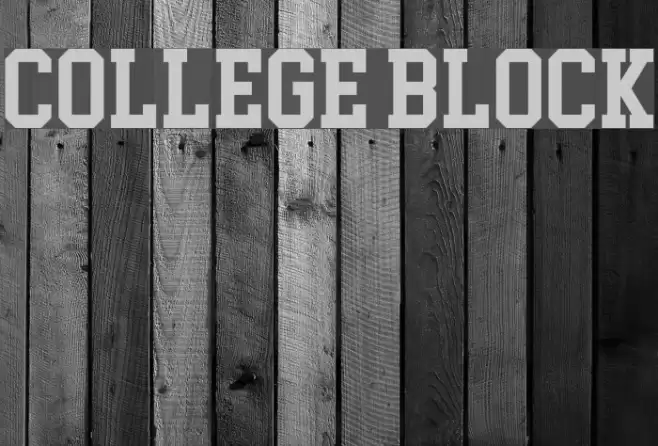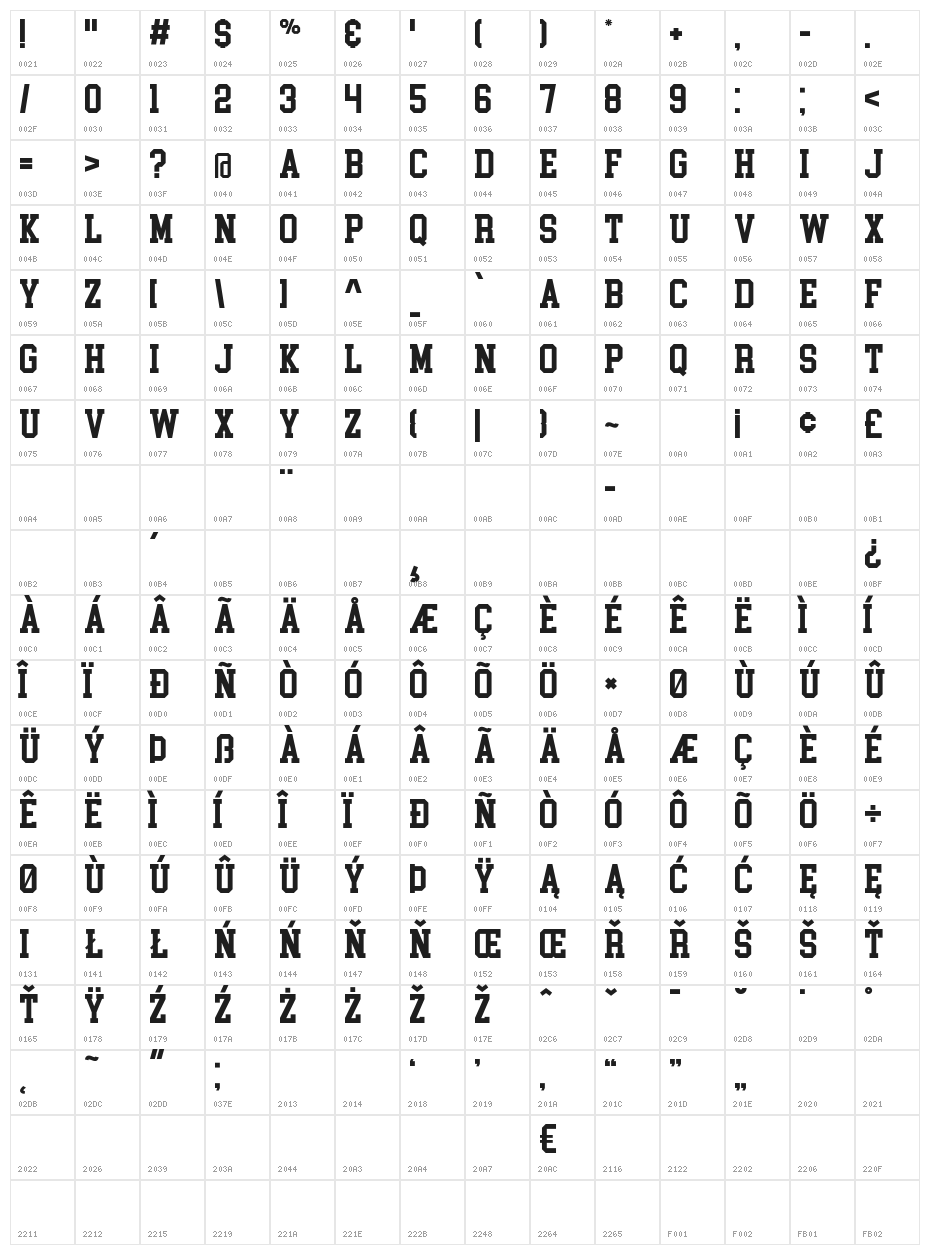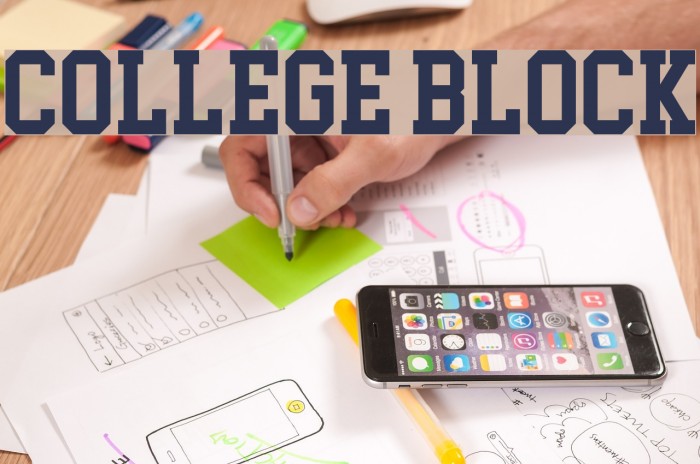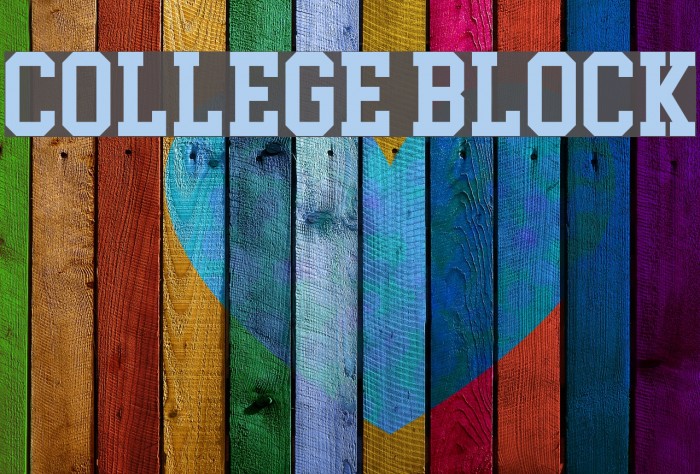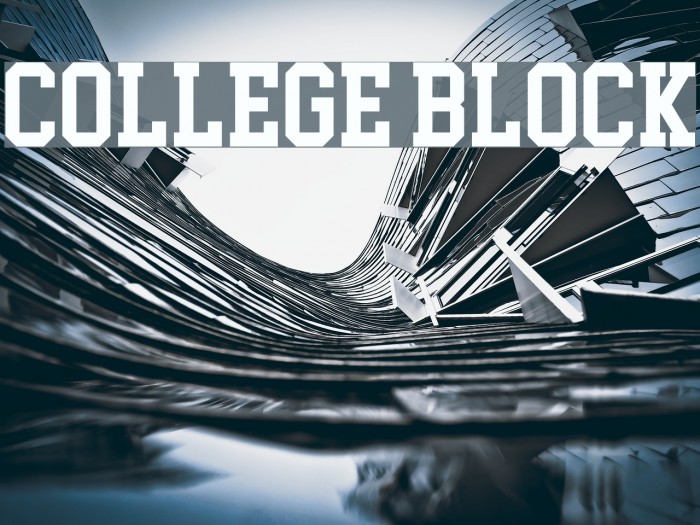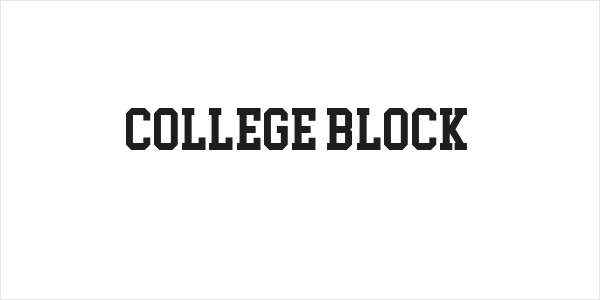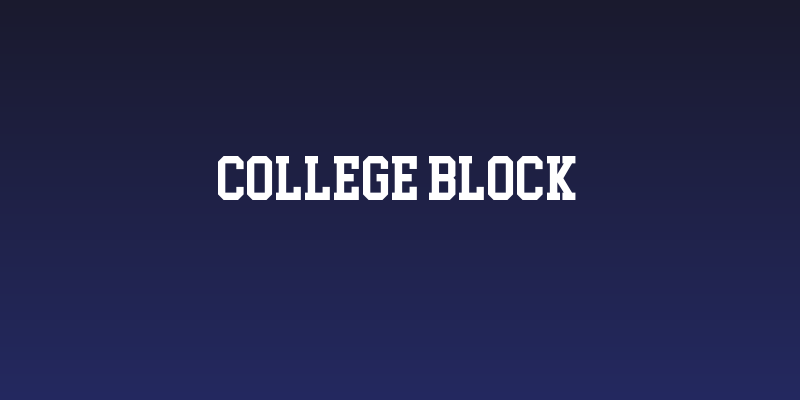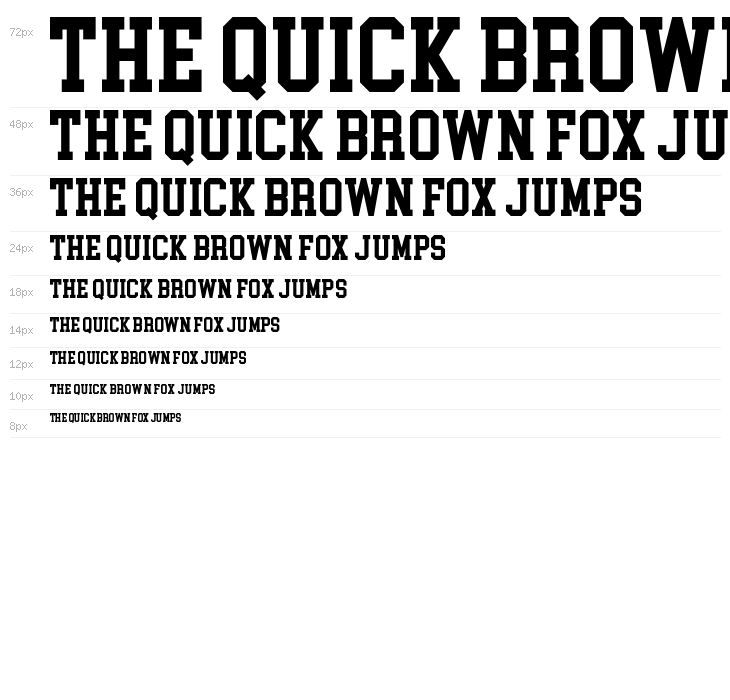
College Block Font
College Block Description
This font features a bold, blocky design reminiscent of traditional collegiate lettering. The characters are uppercase with strong, angular lines and a uniform thickness that conveys a sense of strength and stability. The numbers and special characters maintain this robust style, ensuring consistency across all glyphs. The overall appearance is clean and impactful, making it ideal for creating a sense of authority and tradition. The spacing between characters is tight, which enhances the compact and solid look of the text.
A bold, blocky font with a collegiate style, perfect for impactful designs from Serif fonts.
- Proposed Projects: Ideal for sports team branding, university merchandise, event posters, and any project requiring a strong, traditional aesthetic.
- Character Spacing: Tight
- Overall Style: Classic